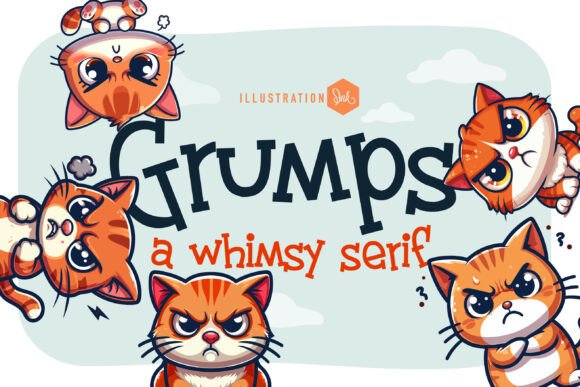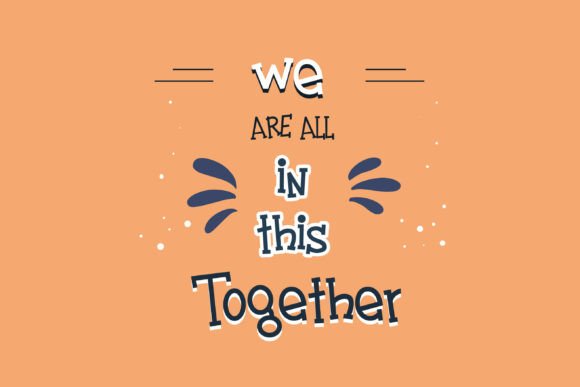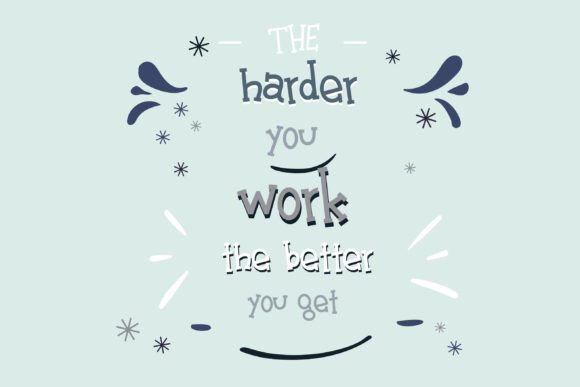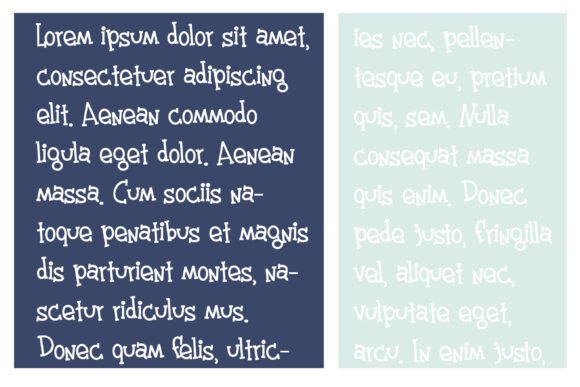
Grumps Font
About the Grumps Font
Explore the possibilities with Grumps Font, a font that offers both beauty and functionality. This hand-crafted font is a whimsical print with hand-crafted serifs throughout.
Grumps Font’s whimsical nature makes it ideal for headlines, short text blocks on posters, and branding elements where a playful yet slightly quirky feel is desired. It works exceptionally well for children’s products, invitations to informal events, or packaging for artisan goods. Avoid using it for body text or UI elements; its handcrafted serifs are not optimized for readability in large quantities.
Its bold version adds impact to short statements, logos, and titles. Consider pairing Grumps with a clean sans-serif like Open Sans for contrast and readability in supporting text, or a more geometric font like Bebas Neue for a modern, slightly edgier feel. A script font such as Pacifico could also complement its handcrafted charm for a more unified, artistic look.
Grumps Font projects a friendly, slightly mischievous personality; it’s bold and attention-grabbing without being overly serious or aggressive. This makes it suitable for brands that wish to communicate approachability and a hint of playful eccentricity.